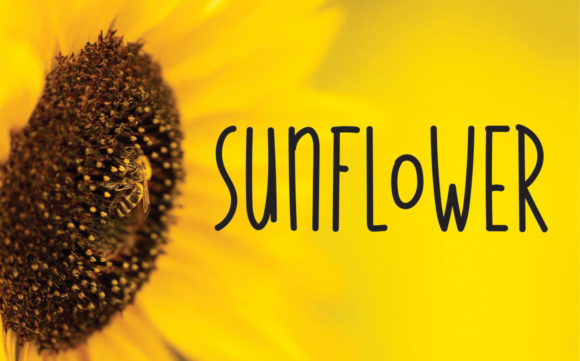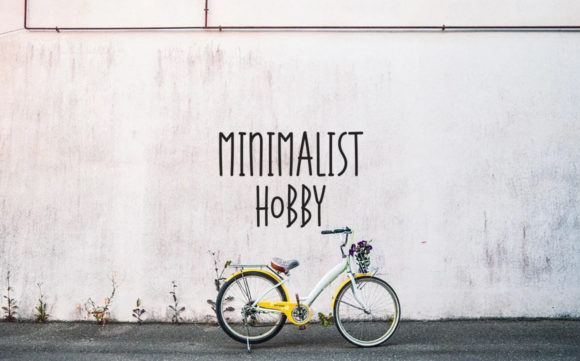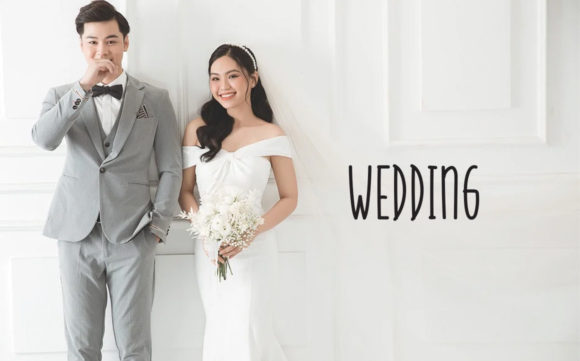
About Mood Booster Font
Mood Booster is a cute, quirky, and fun handwritten font that brings a touch of playfulness to your designs. With its simple yet visually impactful style, this font has the ability to instantly enhance the appeal of your creations.
The handcrafted nature of Mood Booster adds a personal and authentic feel to your projects. Whether you’re designing greeting cards, invitations, social media graphics, or any other creative piece, this font will inject a sense of charm and whimsy that is sure to catch the eye.
The simplicity of Mood Booster is its strength. It conveys a sense of lightheartedness and joy, making it perfect for a variety of applications. The quirky letterforms and unique character variations of this font bring a distinct visual effect that sets your designs apart from the rest.
Allow Mood Booster to lift the mood of your creations and make them more appealing to your audience. Its cute and playful demeanor creates an instant connection, evoking positive emotions and leaving a lasting impression. Whether you’re aiming for a fun and friendly vibe or want to add a touch of whimsy to your work, Mood Booster is the ideal choice.
Embrace the charm and quirkiness of Mood Booster in your designs and watch as it instantly elevates the visual appeal of your creations. Let this font be the mood booster that brings a smile to the faces of your audience and sets your designs apart from the crowd.